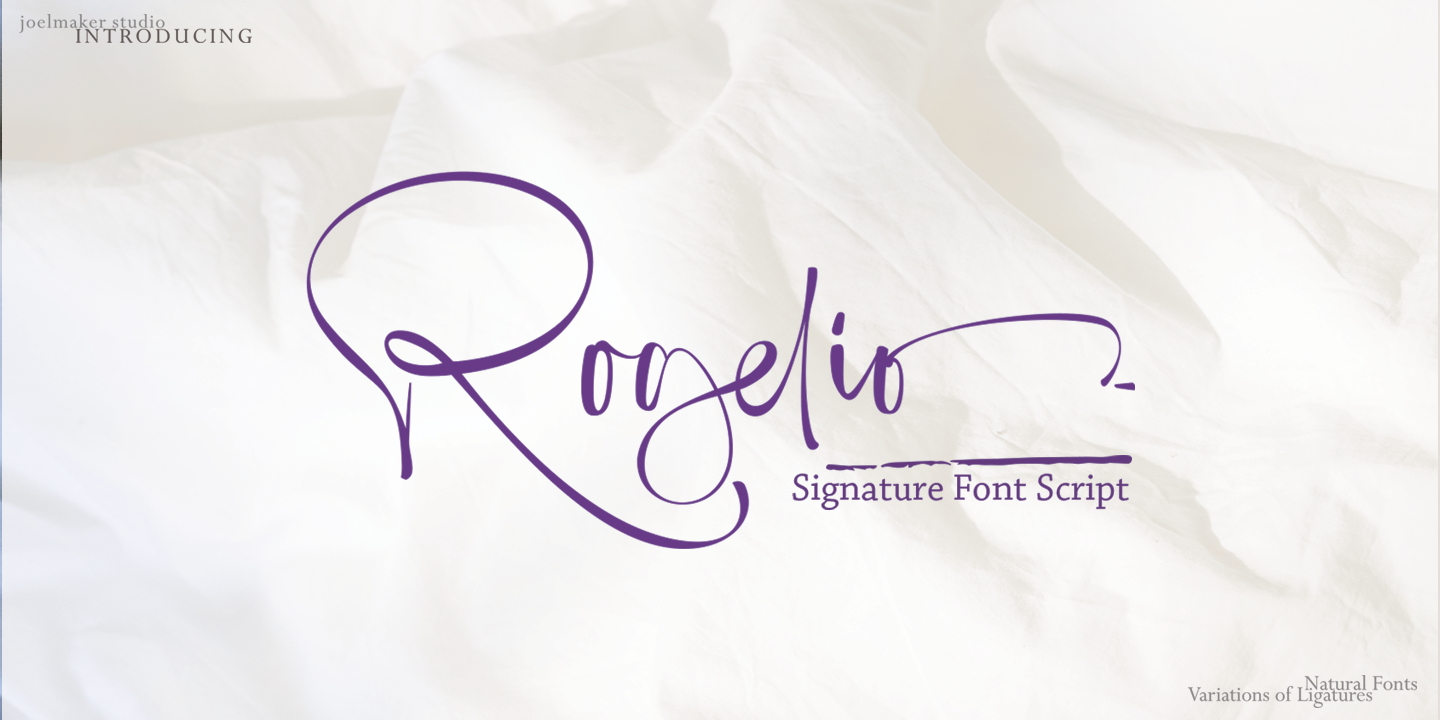
The Rogelio Script Font excels in various design applications including Latin American cultural branding, elegant Hispanic heritage materials, sophisticated wedding invitations, traditional Spanish calligraphy projects, distinguished Latino restaurant signage, romantic celebration designs, cultural festival promotions, artisanal craft packaging, heritage family business identities, and warm community projects that demand Hispanic elegance and Latin script sophistication.
What makes the Rogelio Script Font exciting is its beautiful celebration of Latin calligraphic tradition through letterforms that capture the passionate elegance and cultural richness of Hispanic heritage. This typeface embodies the essence of romantic Latin script through carefully crafted characters that suggest the flowing penmanship of Spanish masters, the warm hospitality of Latino culture, and the timeless beauty of traditional Hispanic artistry. The font's passionate personality makes it perfect for cultural organizations and heritage brands seeking to honor Latino traditions while communicating warmth, elegance, and the kind of cultural pride that celebrates the rich artistic legacy of Hispanic civilization through typography that flows with Latin grace and sophistication.
The Rogelio Script Font family typically includes elegant weight variations that preserve the Latin script aesthetic, featuring flowing connecting strokes and extended character sets supporting Spanish and Portuguese linguistic requirements. These family options often include traditional alternates with cultural flourishes, Hispanic-inspired ligatures, and romantic decorative elements that provide designers with comprehensive tools for creating authentically Latin typography that celebrates Hispanic artistic traditions while maintaining contemporary accessibility and cultural sensitivity.
Cultural heritage professionals and Latino community organizations consistently choose Rogelio Script Font Free Download for projects requiring typography that communicates Hispanic authenticity and Latin elegance. This typeface delivers exceptional performance in cultural marketing, heritage branding, and community communications where establishing connection to Latino traditions and demonstrating respect for Hispanic artistry is essential for community trust. The font's script character makes it particularly effective for ceremonial and hospitality applications. Download Rogelio Script Font Free Download today to access this culturally rich typeface that transforms communications with its Latin elegance and Hispanic sophistication, creating compelling cultural experiences that honor the magnificent calligraphic traditions of Latin America while maintaining contemporary design excellence and cultural appreciation.